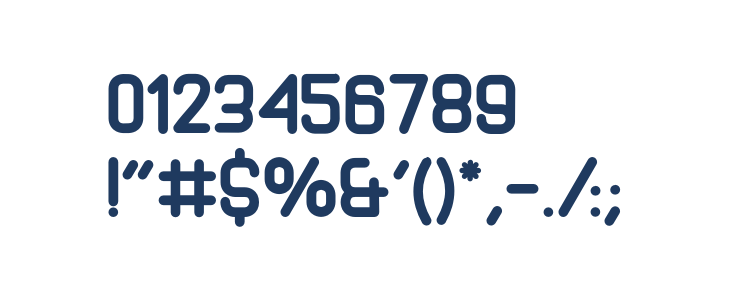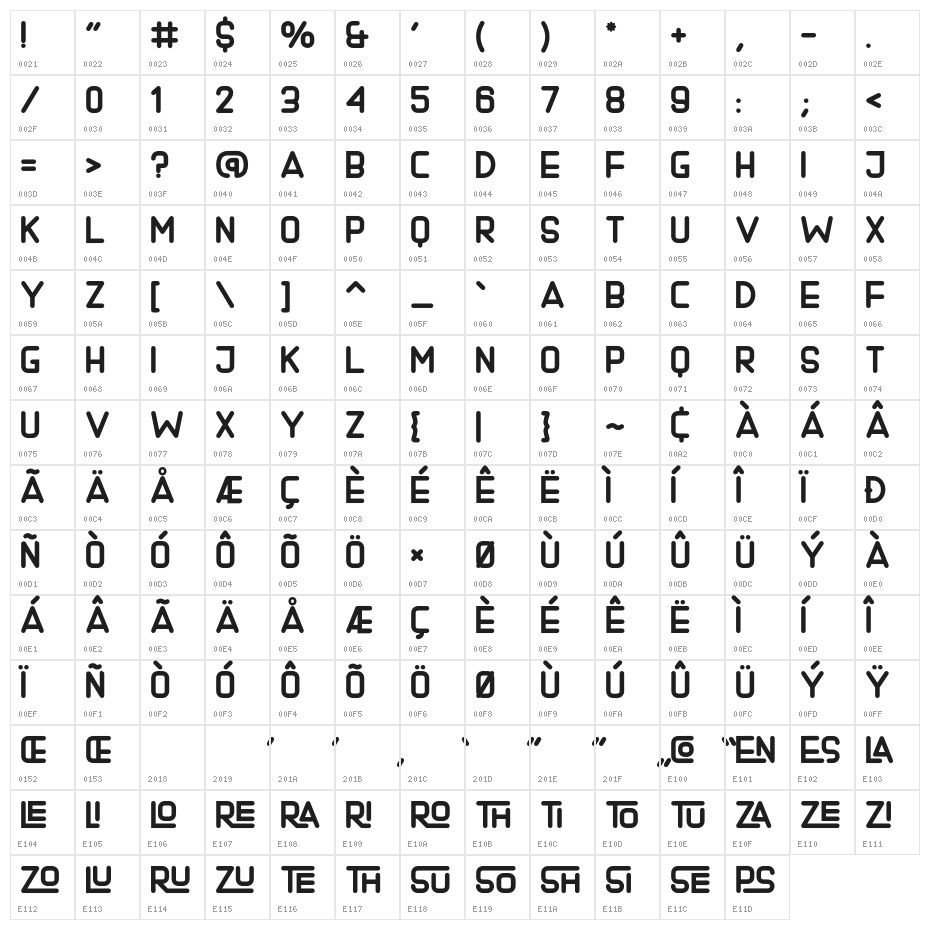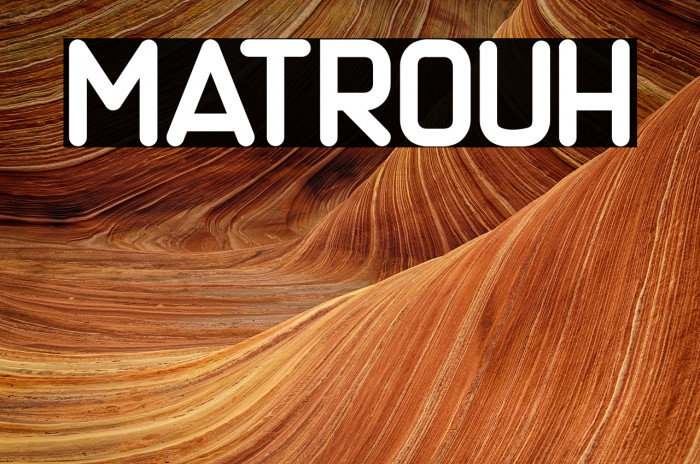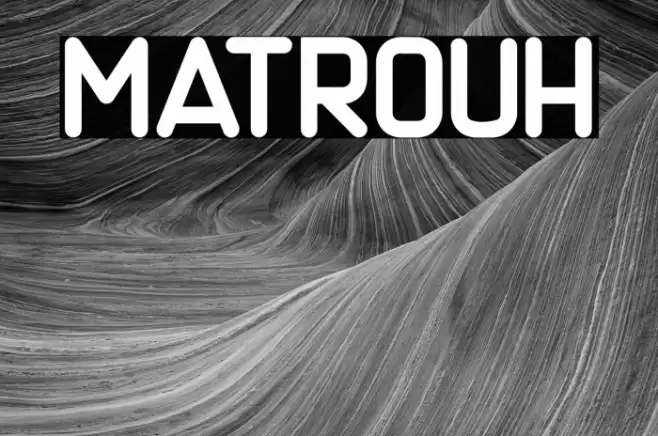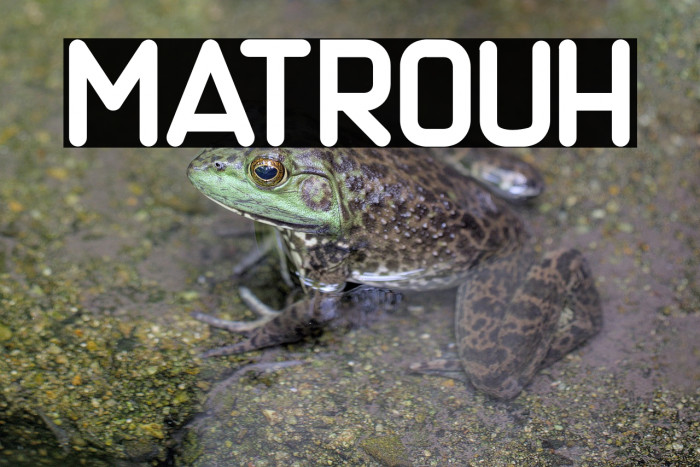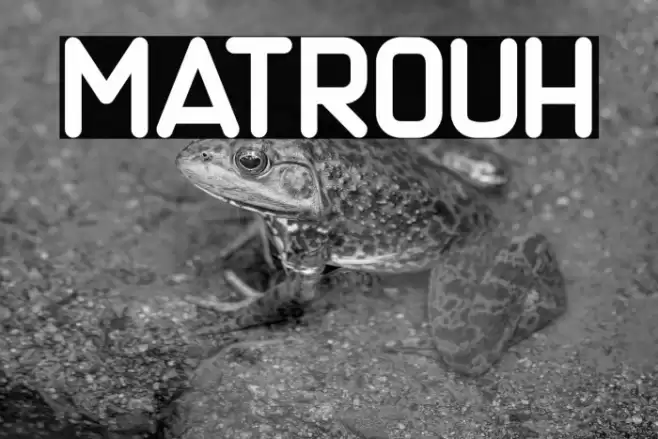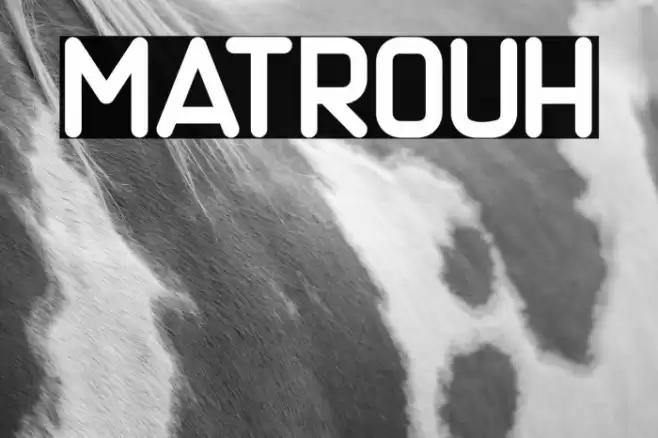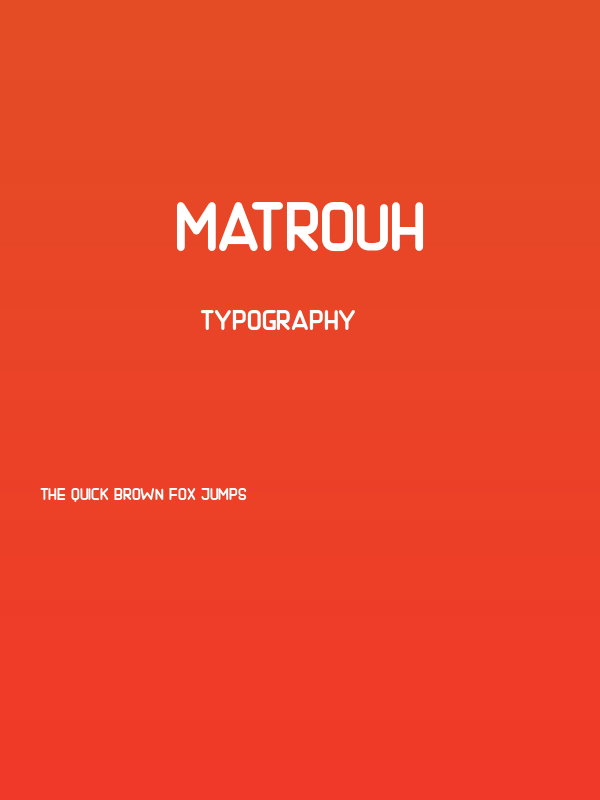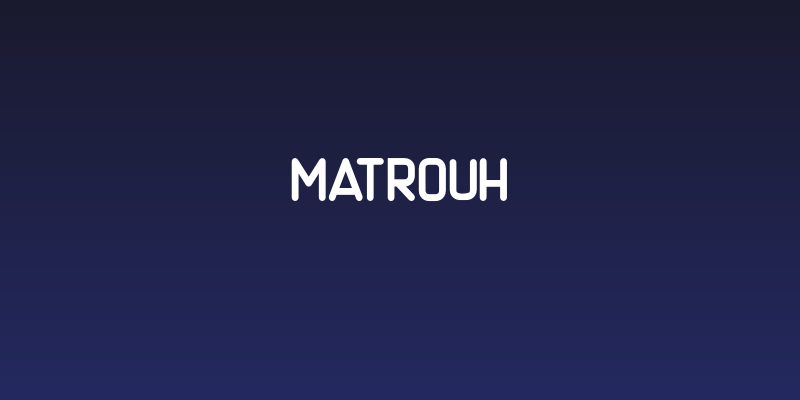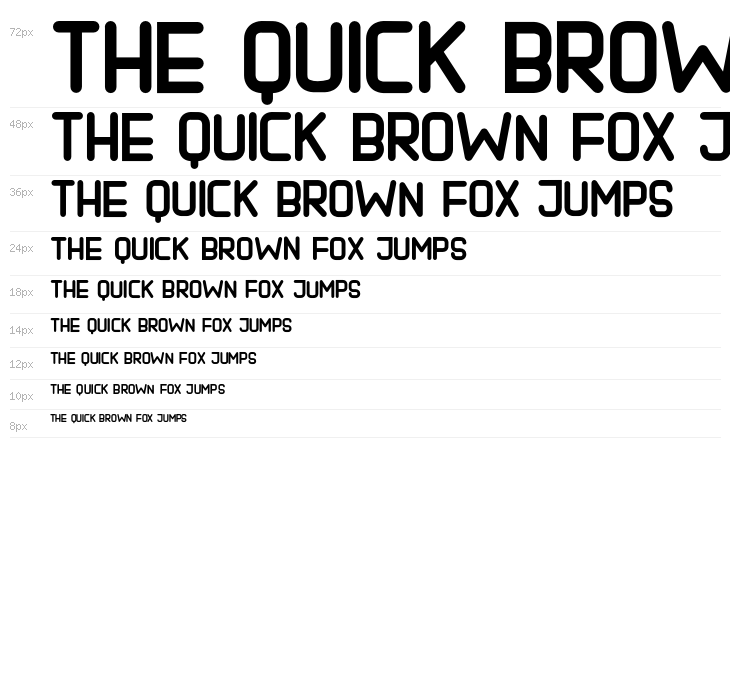
Matrouh Font
Matrouh Description
This font features a modern and clean sans-serif style with rounded edges, giving it a friendly and approachable appearance. The characters are bold and uniform, with consistent stroke widths that provide a balanced and harmonious look. The rounded terminals add a touch of softness, making it suitable for a wide range of applications. The numerals and special characters maintain the same rounded aesthetic, ensuring visual consistency across all elements. This font is versatile and can be used effectively in both digital and print media.
| Use Case | Headlines, Logos, User Interfaces |
| Proposed Projects | Ideal for branding, advertising, web design, and user interfaces where a modern and approachable look is desired. |